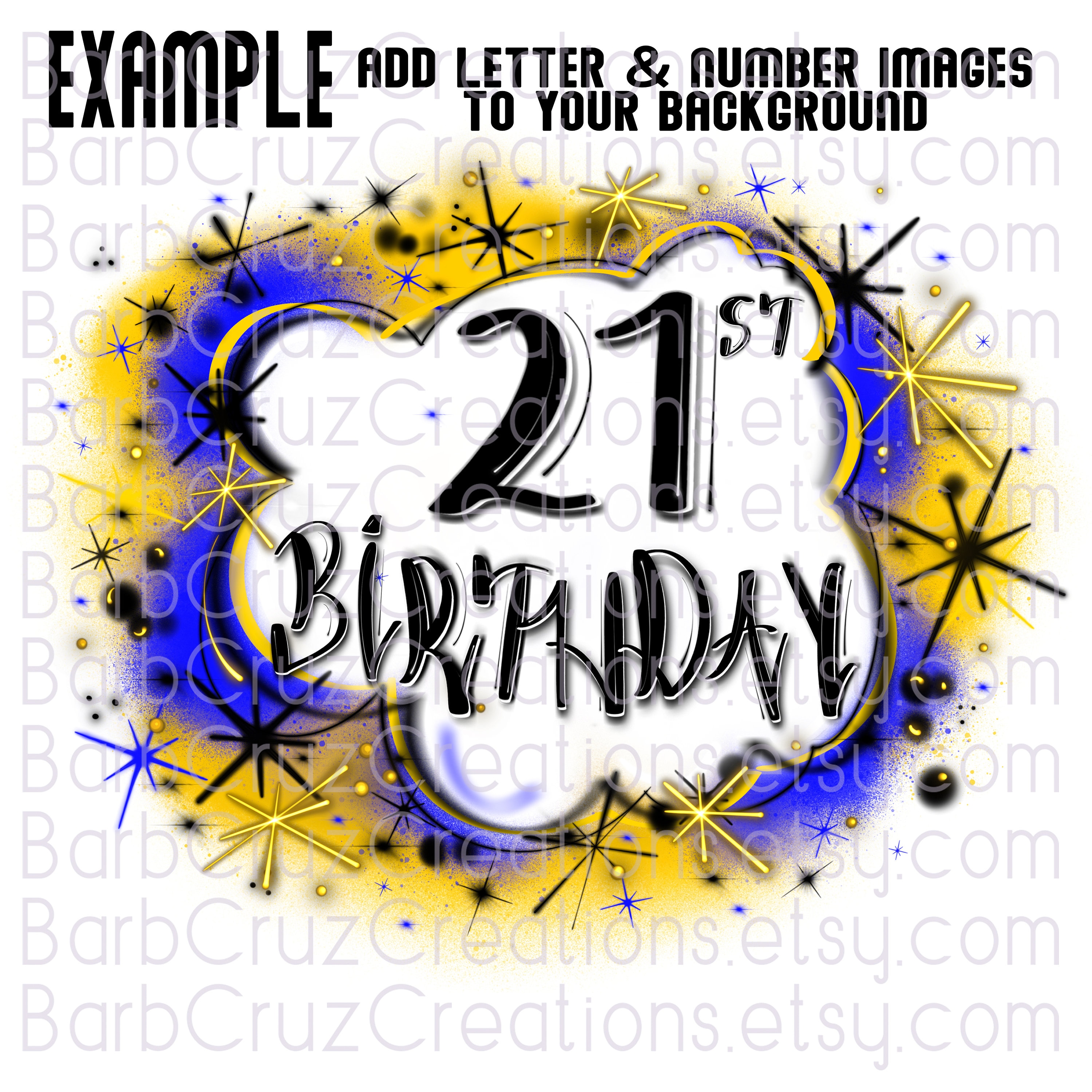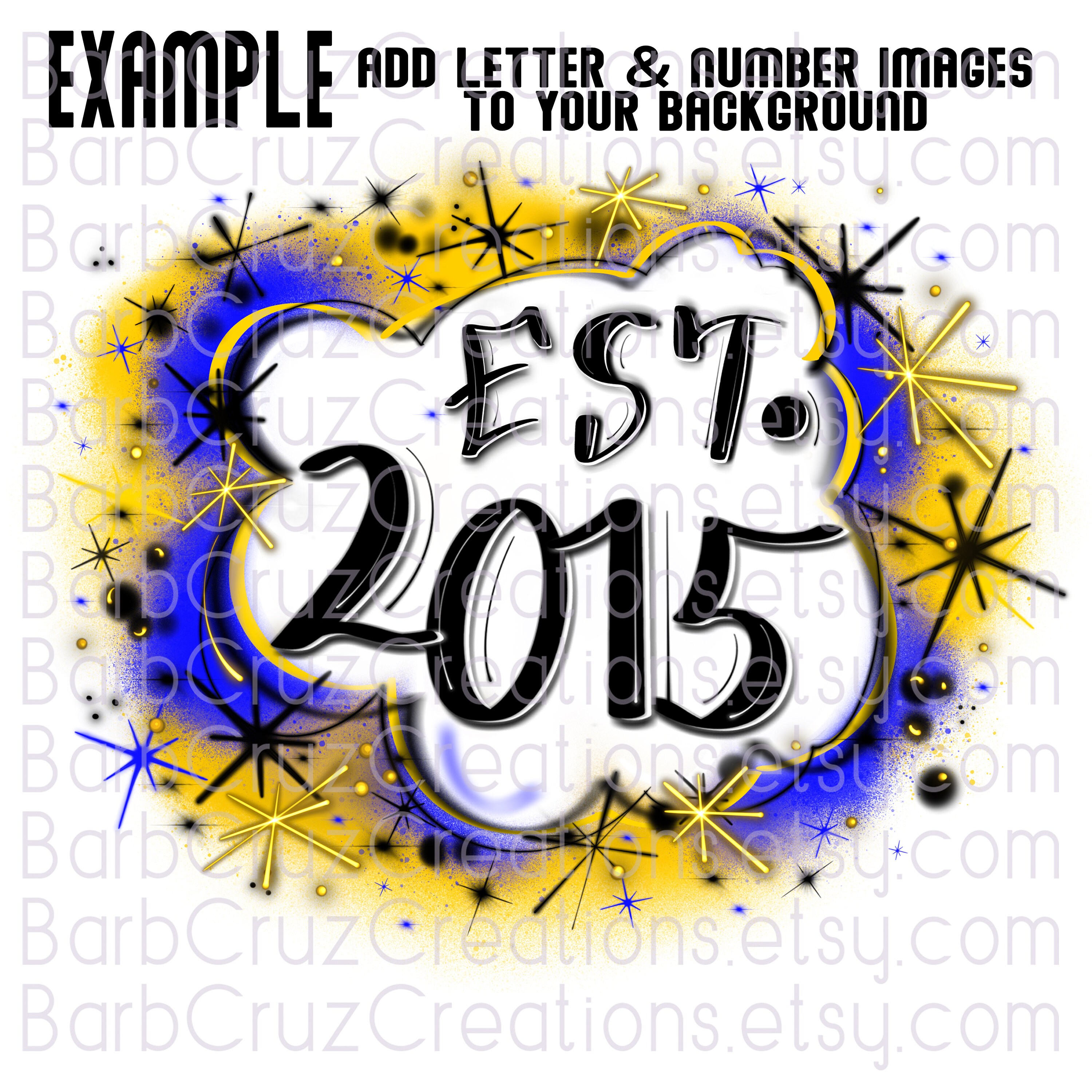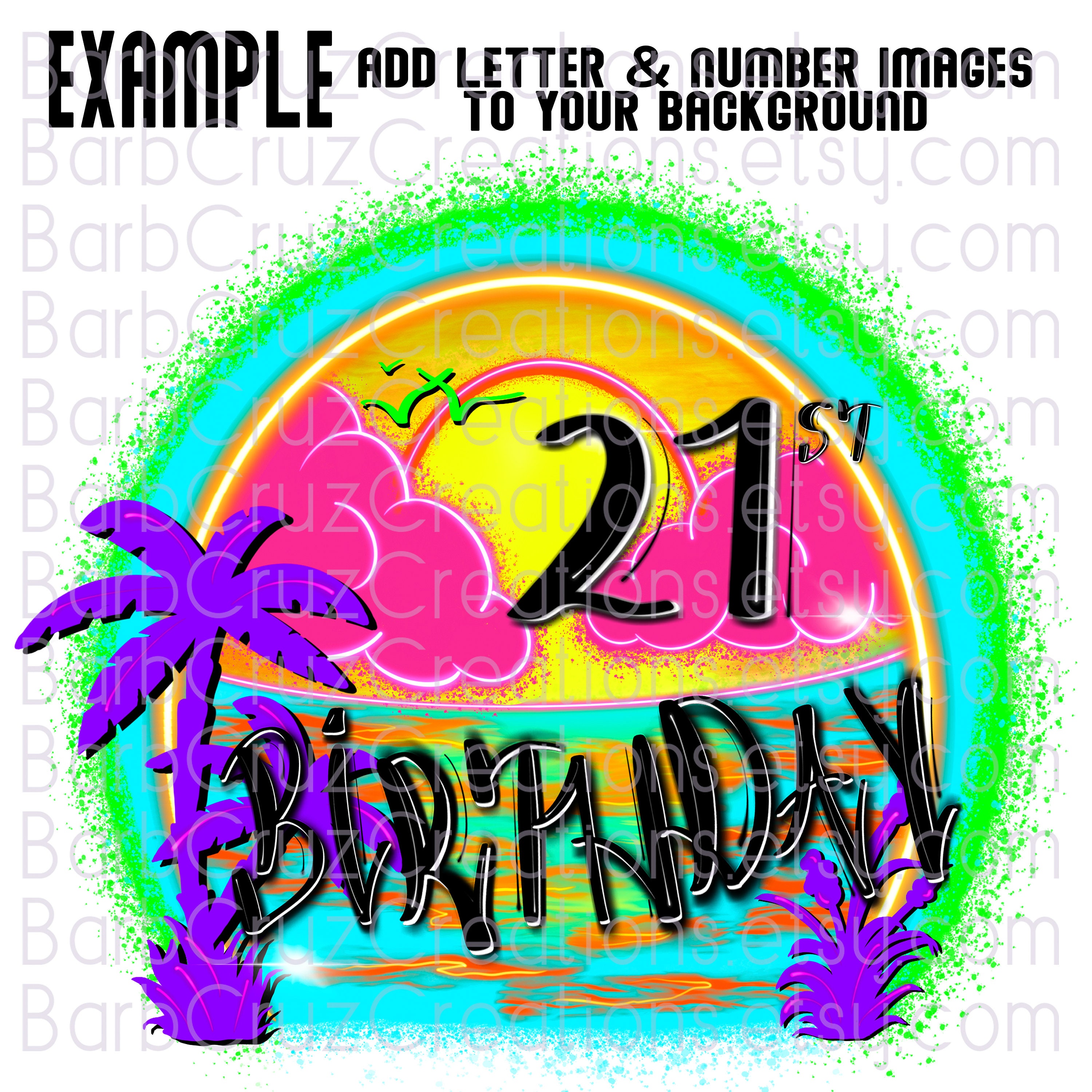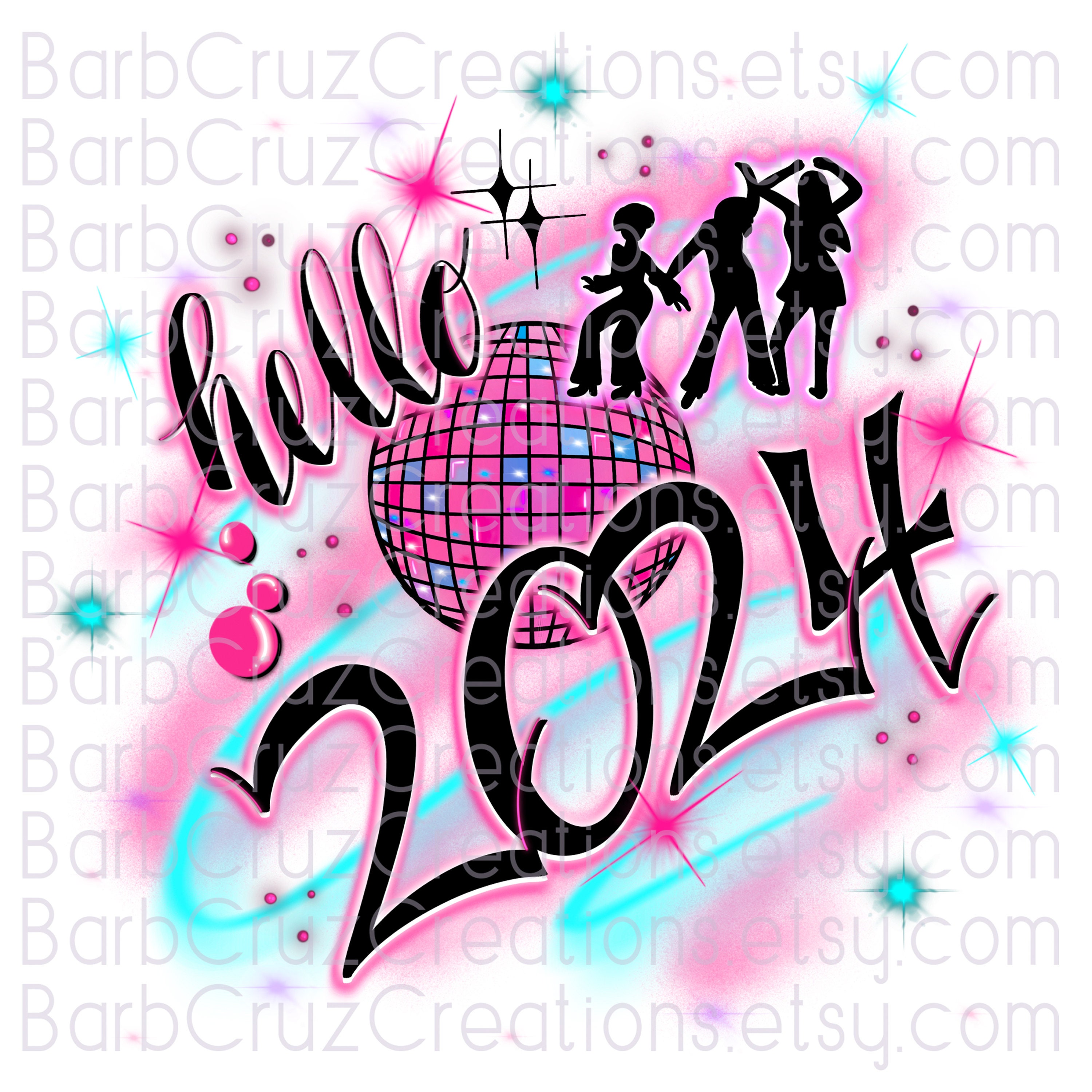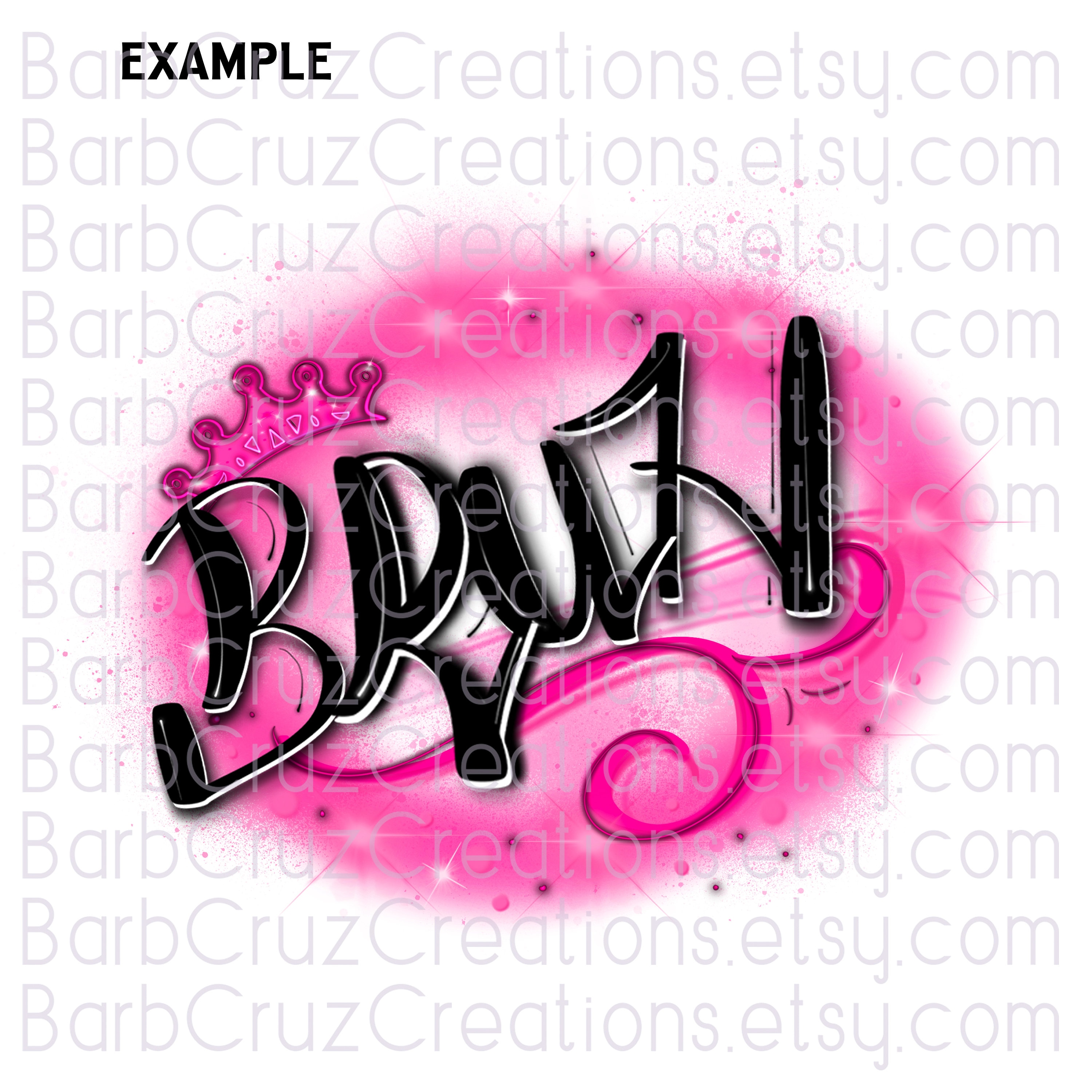
Graffiti Letters, Cruz Sharp Font, Alphabet, Airbrush images of Fonts, Sublimation Design, Digital, png, bundle Airbrush Digital Image
Graffiti individual images png airbrush alphabet (this purchase is for the font images only not the examples shown on how to use them.)
*You are purchasing the whole Alphabet images of each Letter in a Zip file in png format. Create your words by adjusting/aligning each image next to each letter needed. You can tilt, curve, enlarge, or make smaller for a fun twist.
Add to a background use for airbrush monogram, a personal message, name, image to make a custom design in your design program.
Watercolor & Airbrush Images are transparent in some spots and can be layered to achieve darker or brighter images. Use your copy and paste feature for desired brightness.